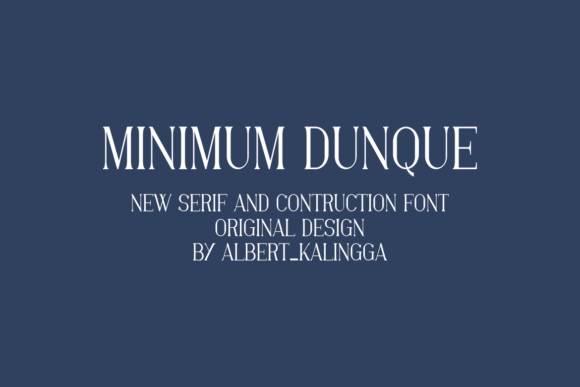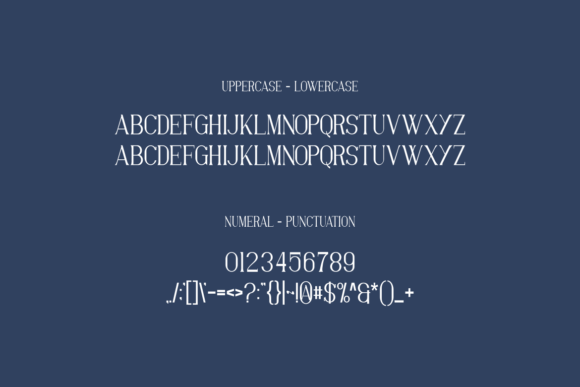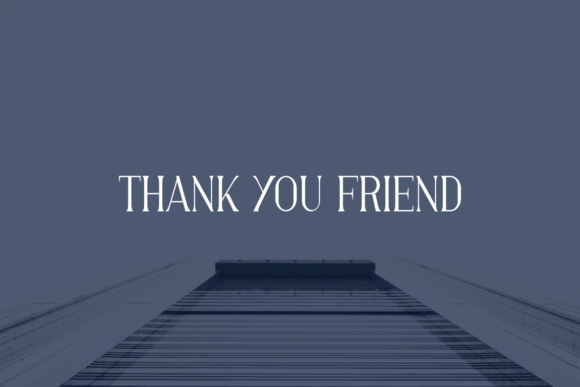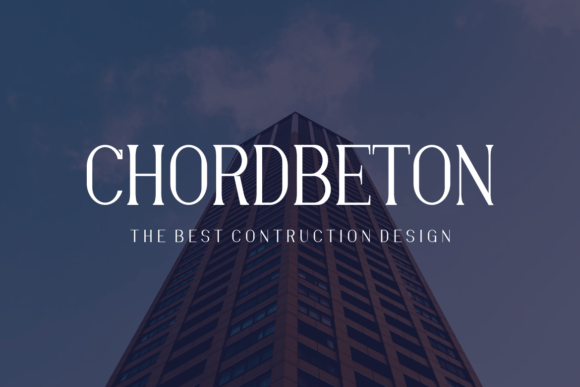
Introduction to Minimum Dunque Font
As a designer, there’s nothing quite like the thrill of finding the perfect font to elevate your creative project. Remember that moment when you stumbled upon a font that perfectly captured the essence of your vision? For me, it was discovering the Minimum Dunque Font – a timeless serif font that effortlessly combines elegance with simplicity.
With its clean lines and classic design, Minimum Dunque Font brings a touch of sophistication to any text. Whether you’re working on a high-quality editorial layout or a formal document, this font exudes a sense of understated style that’s hard to find in other design resources. And the best part? You can download it for free, making it a valuable addition to your design arsenal.
As a design resource, Minimum Dunque Font offers a transparent background that makes it easy to layer and manipulate, allowing you to focus on what really matters – creating a stunning visual experience for your audience.
Key Features of Minimum Dunque Font
- High-quality font design for creative projects and design resources
- Available for free download with a transparent background for seamless integration
- Unique characteristics: minimalistic design, clean lines, and subtle texture for a sophisticated look
- Perfect for use in digital and print media, including logos, branding, and typography-based projects
- Easy to use and customize, making it an ideal design resource for professionals and hobbyists alike
Honest Review: Minimum Dunque Font
I recently stumbled upon the Minimum Dunque Font, and I have to say, I’m quite impressed. This free download has been a game-changer for my creative project.
- ✨ High-quality design: The Minimum Dunque Font is meticulously crafted, ensuring that it stands out in any design project.
- ✨ Transparent background: This feature allows for seamless integration with various design elements, making it a versatile design resource.
- ✨ Easy to use: The font is simple to apply and customize, making it perfect for designers of all skill levels.
- ⚠️ Limited font weights: The Minimum Dunque Font only comes in a few font weights, which might limit its application in certain design scenarios.
- ⚠️ Not suitable for large-scale projects: Due to its simplicity, the font might not be the best choice for massive, intricate designs.
Overall, I’d say the Minimum Dunque Font is a solid design resource that’s perfect for smaller, more creative projects. While it may not be ideal for every design scenario, its high quality and versatility make it a valuable addition to any designer’s toolkit.
Minimum Dunque Font
The Minimum Dunque Font is a high-quality, free download font ideal for creative projects that require a unique touch. Its transparent background makes it perfect for overlaying text on images or using as a design resource in various applications.
The Minimum Dunque Font is perfect for:
- Business presentations
- Blog posts and articles